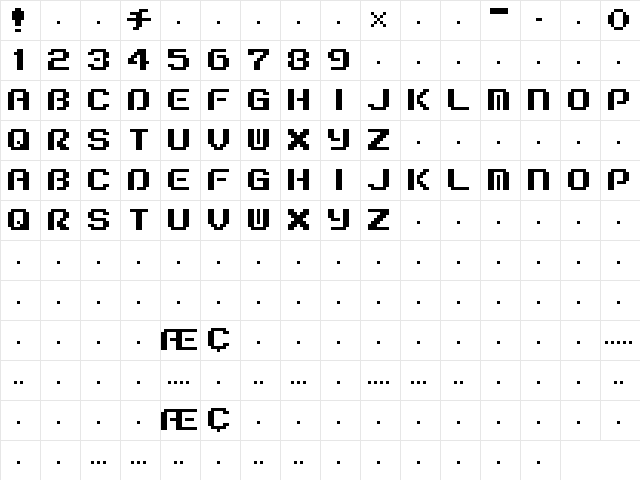
Complete I Have Bad News! Regular glyph index. Displaying only characters natively supported by I Have Bad News! Regular font.
I Have Bad News! is a composed and adaptable typeface that performs quietly and consistently across a wide range of design contexts.